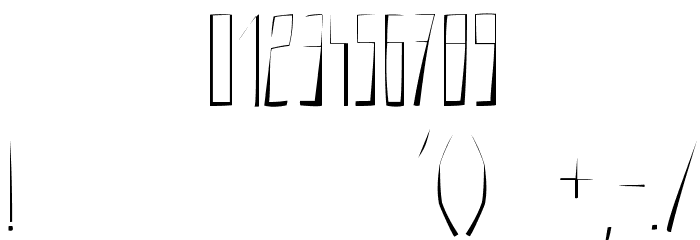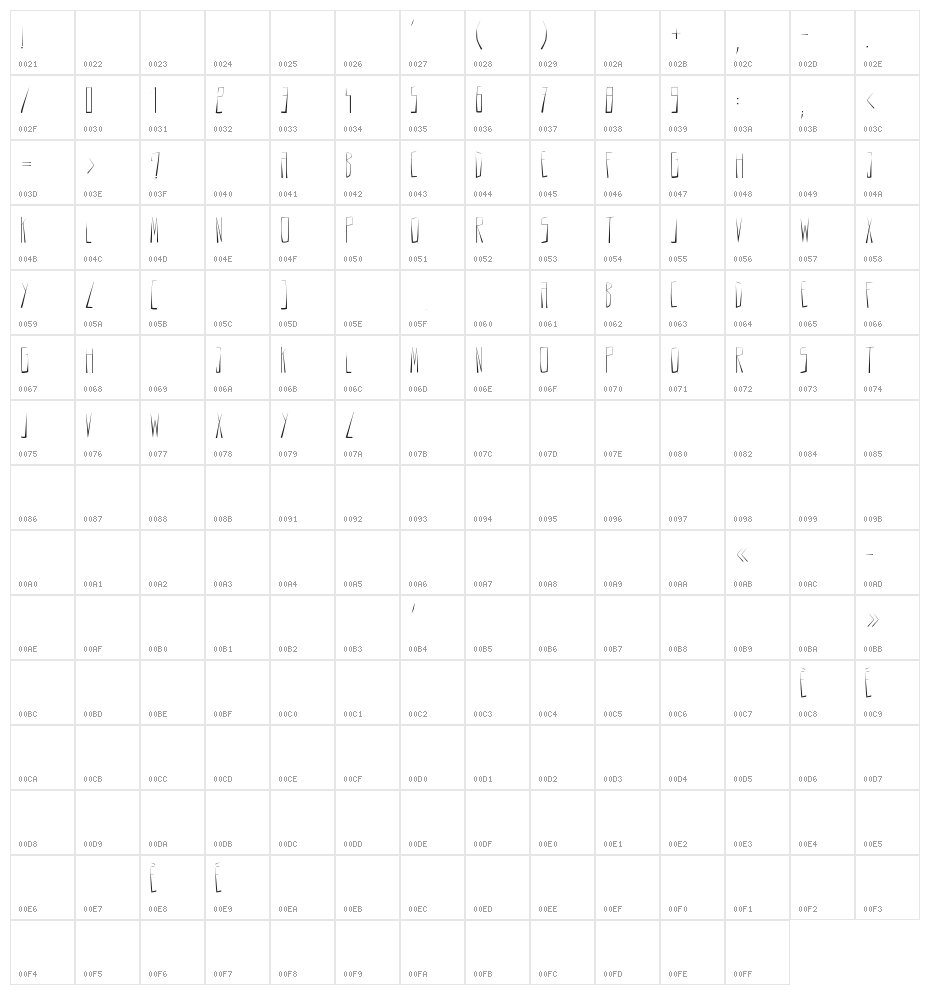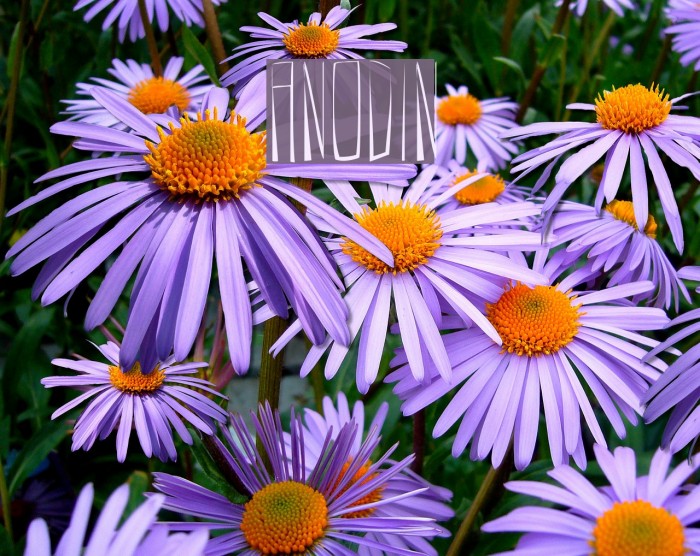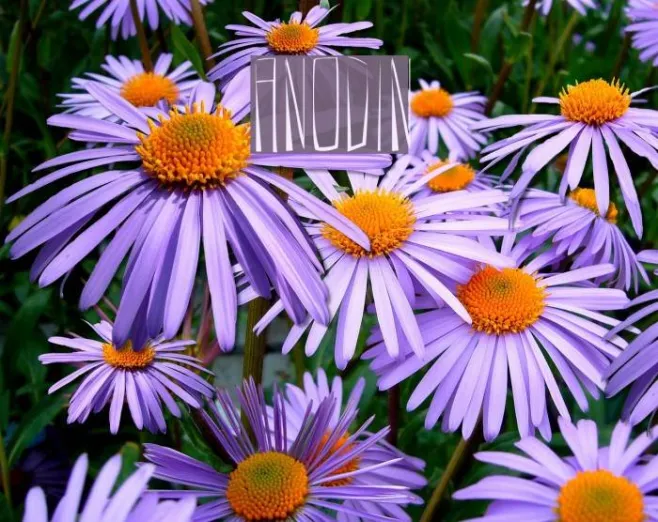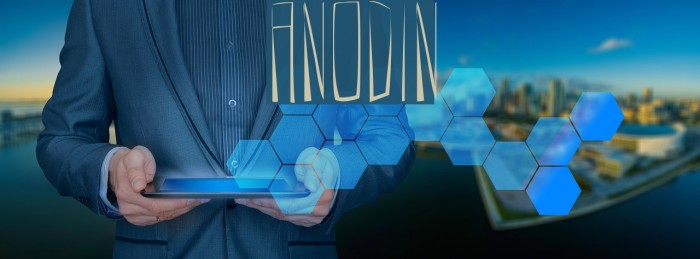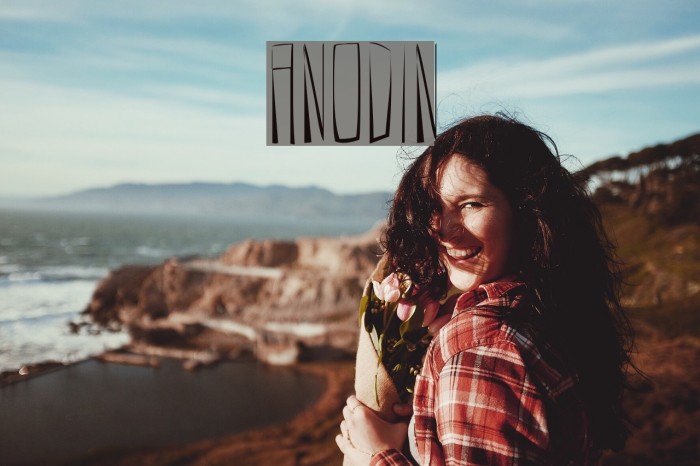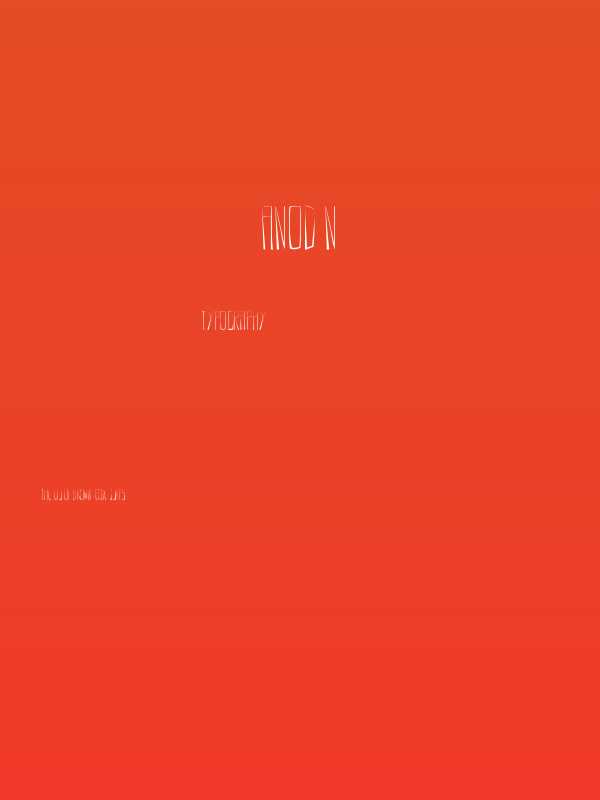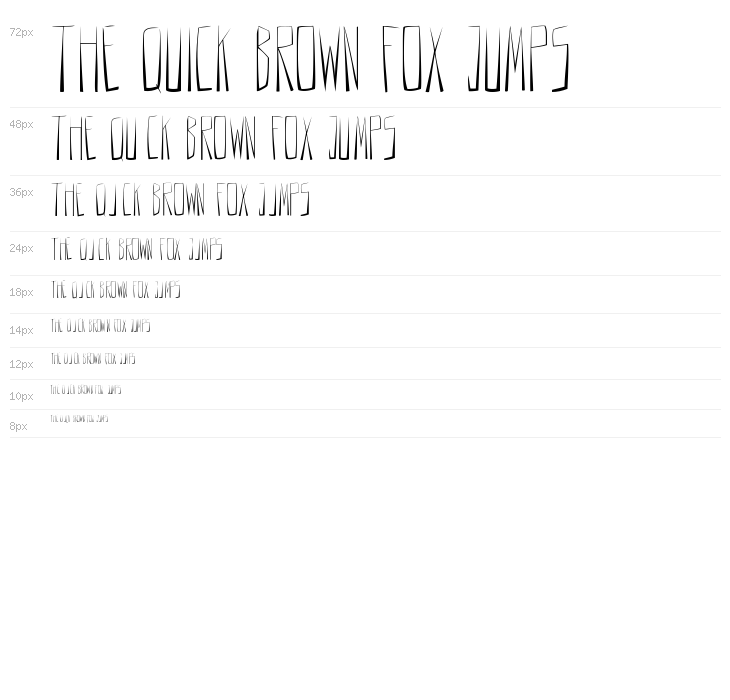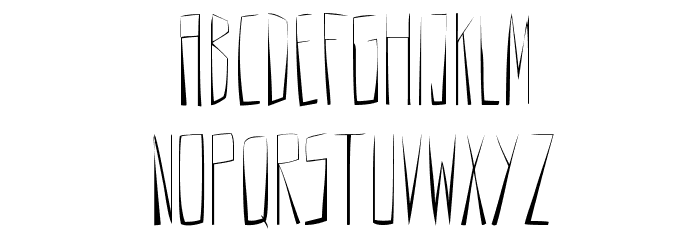
ANODIN Font
ANODIN Description
This font features a modern and sleek design with elongated, narrow characters that create a sense of height and elegance. The uppercase letters are particularly tall and slender, giving them a distinctive appearance. The lowercase letters maintain this narrow style, ensuring consistency throughout. The numbers follow the same elongated form, providing a cohesive look. Special characters are stylized to match the overall aesthetic, with unique angles and curves. The font's thin strokes and high contrast between thick and thin lines add to its sophisticated and contemporary feel.
| Proposed Projects | Ideal for fashion branding, luxury product packaging, modern art posters, and editorial headlines. |